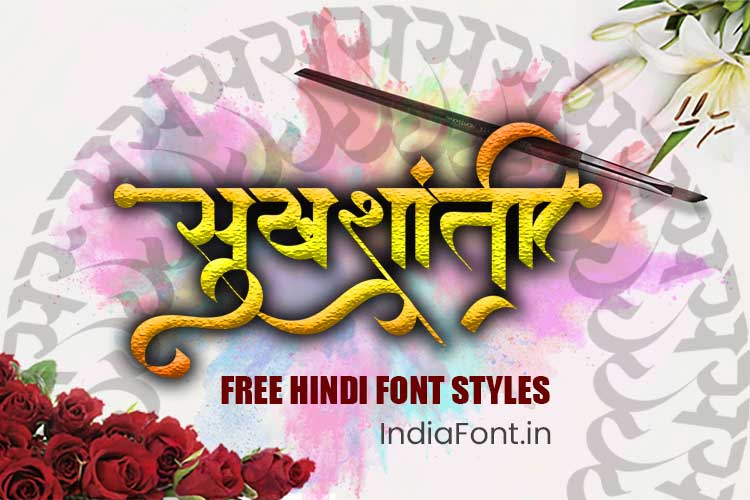
Best Free Fonts Download
Discover premium quality free fonts for Hindi, Marathi, and English typography. Download professional-grade fonts without compromising on quality or design aesthetics.
The best fonts free download can completely transform your designs, whether you're creating digital art, invitations, or branding materials. Fonts not only enhance the visual appeal of your work but also convey the right mood and message. The good news? You don't always need to pay for premium fonts to get professional results. In this guide, we'll take you through some of the best fonts for free download, tailored to the needs of Indian designers.
When it comes to finding high-quality free fonts, especially for Indian languages, you have several excellent options. The AMS font collection stands out as one of the most comprehensive and professionally designed free font collections available today.
AMS Sindhu font free download
AMS Sindhu is a beautiful calligraphic font that captures the essence of traditional Indian typography. This font is perfect for wedding invitations, religious texts, and ceremonial documents. The flowing curves and elegant letterforms make it ideal for projects that require a touch of sophistication and cultural authenticity.
MaaI gaNaeSaaya nama:
AMS Shloka font free download
Designed specifically for Sanskrit and Hindi religious texts, AMS Shloka combines readability with traditional aesthetics. This font is widely used in spiritual books, mantras, and educational materials related to Indian philosophy and religion.
Aaema ga/ gaNapatayae nama:
AMS Premankur font free download
AMS Premankur offers a modern take on traditional Devanagari script. Its clean lines and contemporary feel make it suitable for both digital and print media. This font works exceptionally well for magazines, websites, and modern branding projects.
maYaukr maaYava
AMS Piyush font free download
AMS Piyush is known for its versatility and readability. Whether you're designing brochures, presentations, or digital content, this font maintains its clarity across different sizes and mediums. It's particularly popular among graphic designers for its professional appearance.
vyaavasaaqk iDJaqna
AMS Pencil font free download
For projects that need a handwritten, casual feel, AMS Pencil delivers perfectly. This font mimics the natural flow of pencil writing, making it ideal for children's books, informal invitations, and creative projects that require a personal touch.
maYauirmaa
AMS Pankaj font free download
AMS Pankaj strikes a perfect balance between traditional and modern design elements. This font is excellent for book publishing, newspaper headlines, and academic materials. Its high readability makes it suitable for long-form content.
pak/ja jaayasvaala
Here are some trusted websites where you can find high-quality free fonts:
Popular platform for free Devanagari fonts, specializing in Hindi and Marathi typography with over 150+ professional fonts.
A massive collection of free fonts for personal and commercial use, optimized for the web with easy integration.
Offers free fonts with clear licensing information, ensuring you know exactly how you can use each font.
A popular platform with a wide variety of styles, from decorative to professional fonts.
Features a diverse selection of free fonts, including new and trending designs updated regularly.
Many designers share free fonts as part of their portfolios, offering unique and creative options.
Selecting the right font can make or break your design. Here are essential tips to help you choose wisely:
🎯 Match the Mood
Consider the theme of your project—formal, playful, or creative? Your font choice should align with your message and audience.
👁️ Test Readability
Ensure the font is legible in different sizes and contexts. Test it on various devices and backgrounds.